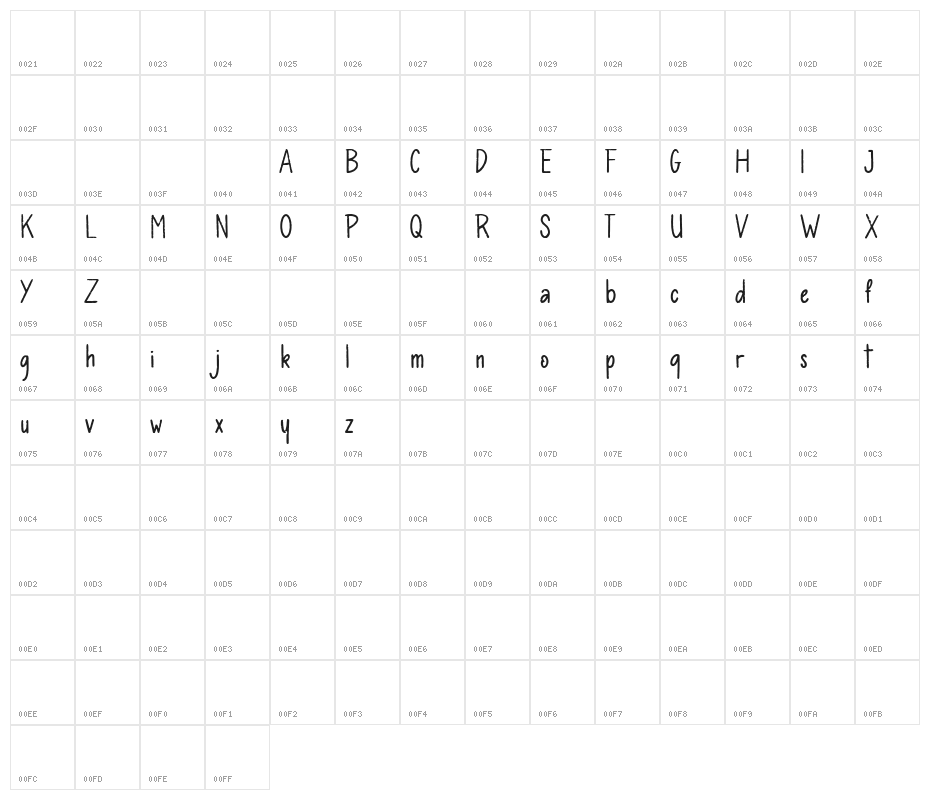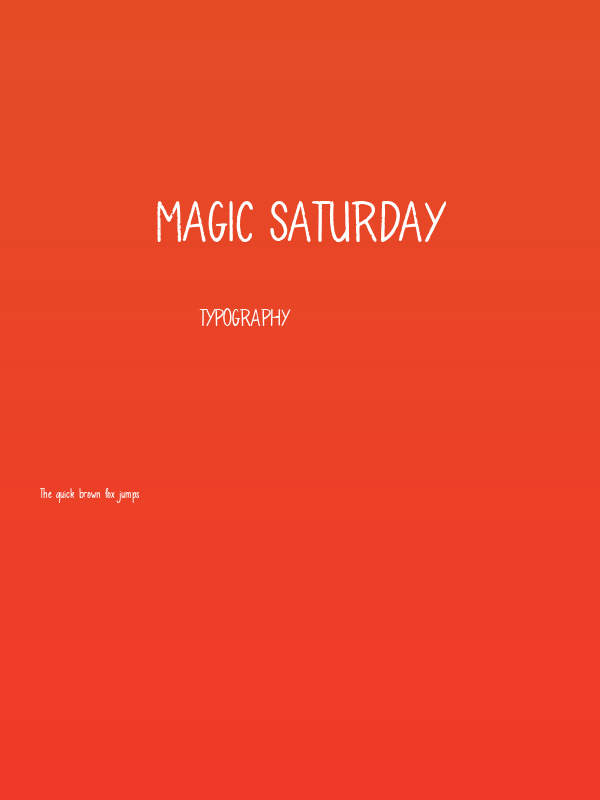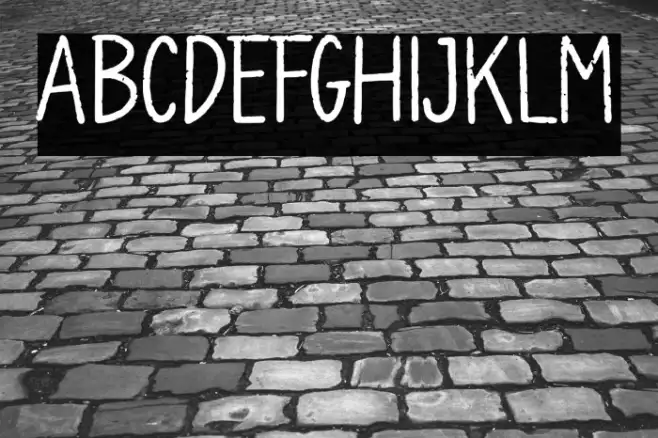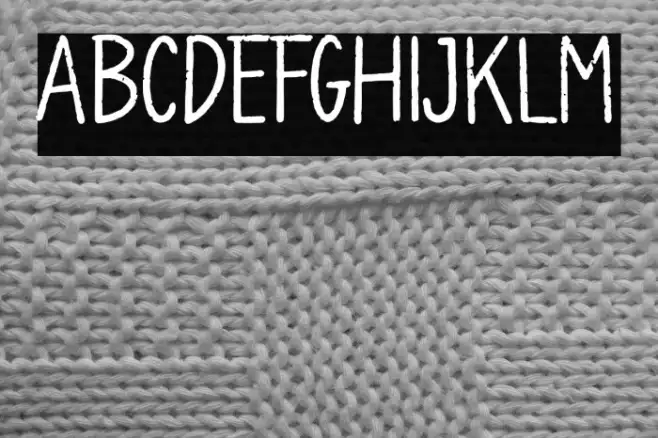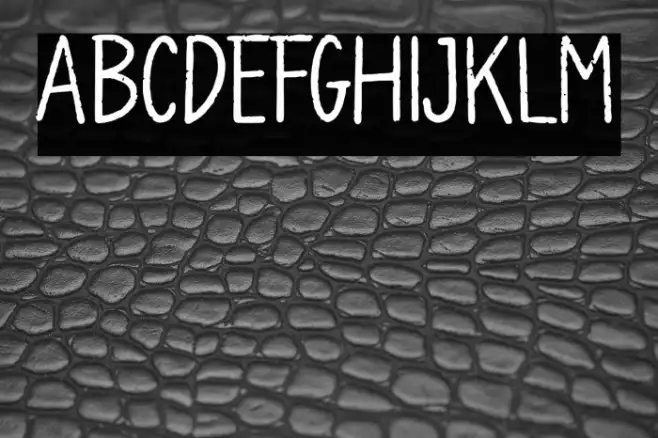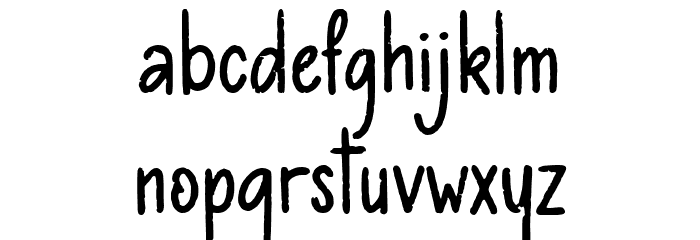
Magic Saturday Font
Magic Saturday Description
This font features a playful and casual handwritten style, characterized by its uneven strokes and slightly irregular letterforms. The uppercase letters are tall and narrow, with a whimsical touch that adds a sense of fun and creativity. The lowercase letters maintain a consistent flow, enhancing the font's informal and approachable appearance. The overall design is reminiscent of hand-drawn lettering, making it suitable for projects that require a personal and friendly tone. The font's unique charm lies in its ability to convey a sense of spontaneity and warmth, making it ideal for creative and artistic applications.
| Use Case | Headlines, Invitations, Artistic projects |
| Proposed Projects | Ideal for greeting cards, children's books, playful branding, and DIY projects. |